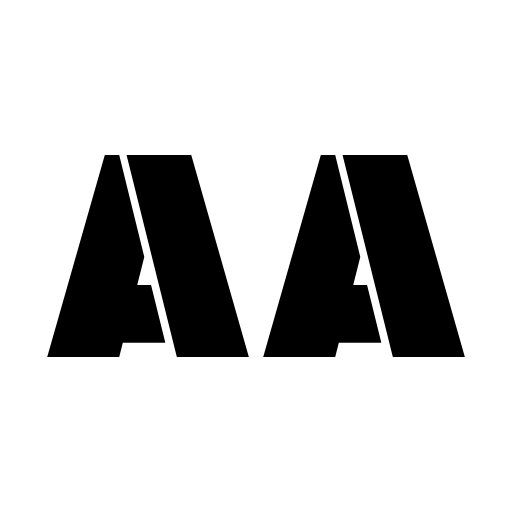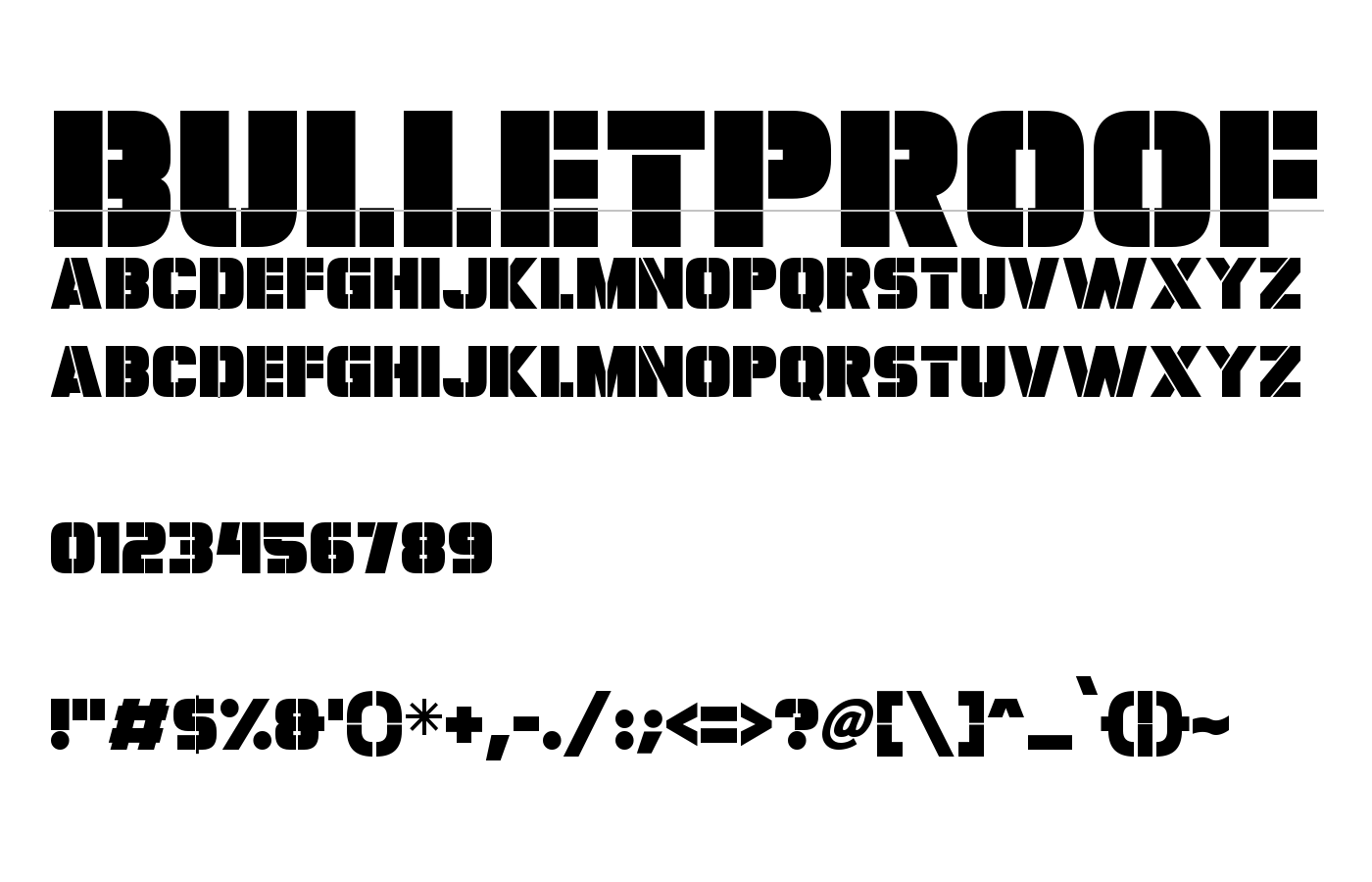
Bulletproof Font is a bold, heavy-weight stencil sans serif typeface characterized by its strong, solid forms and distinct cut-out sections, giving it an industrial and rugged feel. Its wide, uniform strokes and high contrast between filled and negative spaces make it perfect for commanding attention in logos, posters, or headlines, especially for brands seeking a tough, impactful, and utilitarian aesthetic. This font works best in display uses where a bold, authoritative presence is needed.
Bulletproof Font